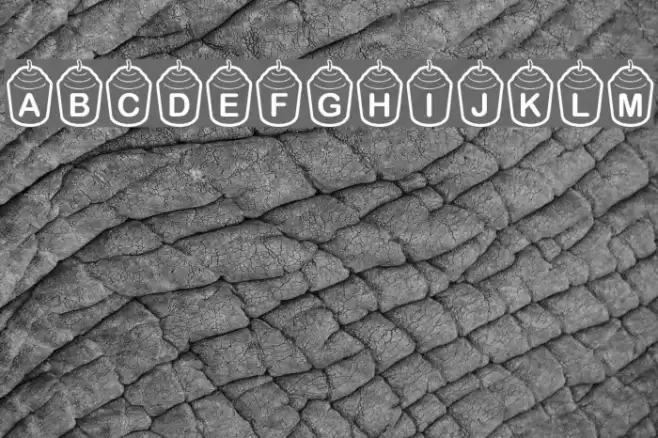
KR Votive Font
KR Votive Description
This font features bold, uppercase letters encapsulated within a stylized candle design, giving it a unique and decorative appearance. Each letter is centered within a candle shape, complete with a wick at the top, creating a cohesive and thematic look. The letters themselves are sans-serif, with a clean and modern aesthetic, contrasting with the playful and illustrative candle motif. This combination of elements makes the font ideal for creative and themed projects, particularly those related to celebrations, events, or holidays. The uniformity of the candle shapes ensures a consistent visual rhythm across text, while the boldness of the letters ensures readability.
A decorative font with bold, uppercase letters inside candle shapes from Uncategorized fonts.
- Proposed Projects: Ideal for event invitations, holiday cards, themed posters, and decorative signage.